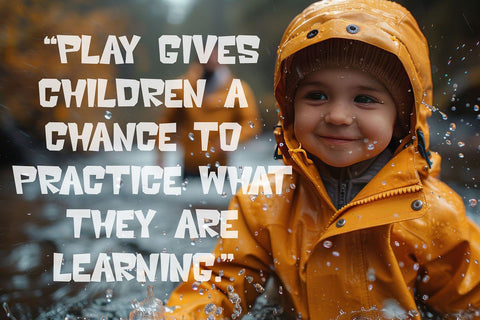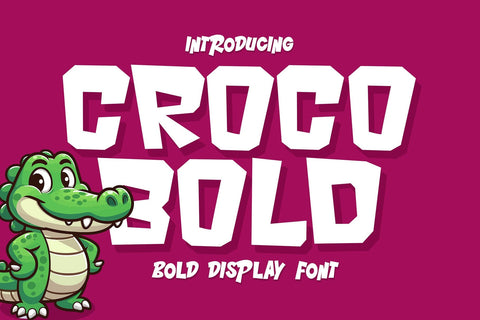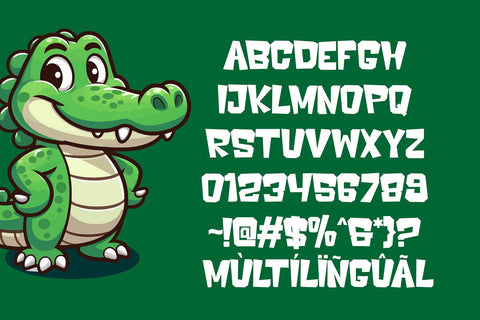
Croco Bold - A Bold Display Font
Croco Bold is a thick, eye-catching display font with a bold and commanding presence. Its strong, solid letterforms make it perfect for headlines, posters, logos, and branding projects that need to grab attention. With its robust and chunky design, Croco Bold ensures maximum readability and visual impact, making it a versatile choice for both digital and print media. Whether you're working on playful, modern, or creative designs, this font adds a bold and confident touch to any project.
- Unique Characters